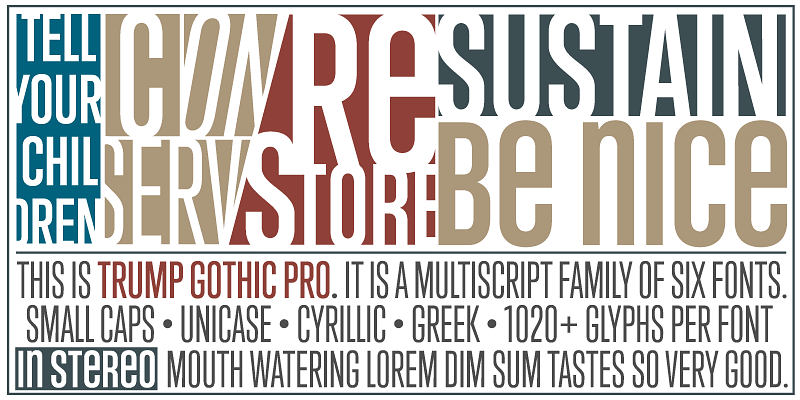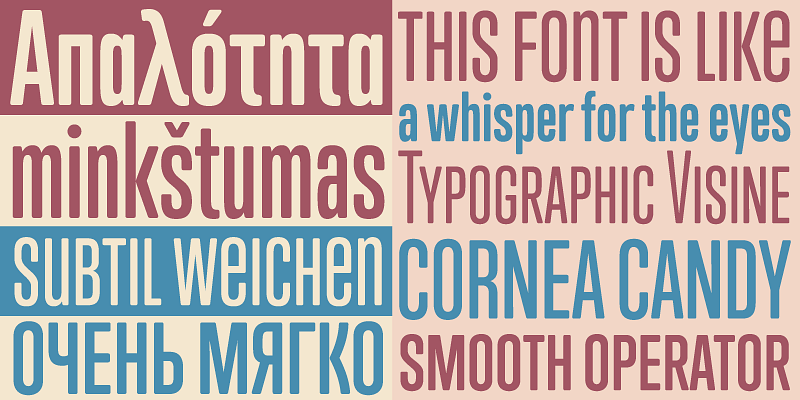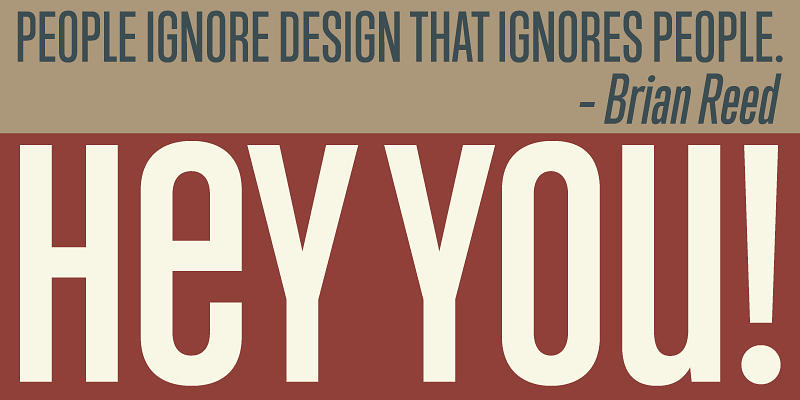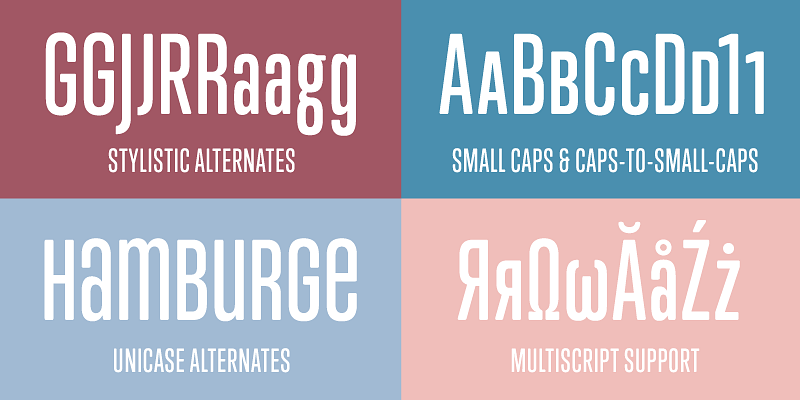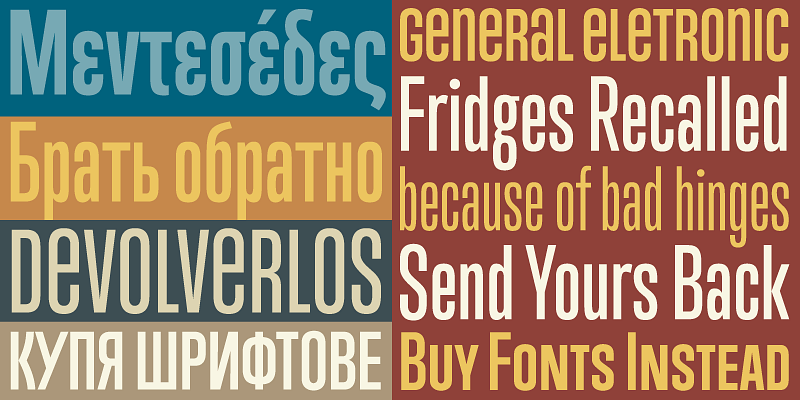
The Trump Gothic/Soft fonts’ main attractions are an economy that helps pack large amounts of information in small spaces, and a clean aesthetic with an ability to emphasize short text in large sizes, without sacrificing legibility.